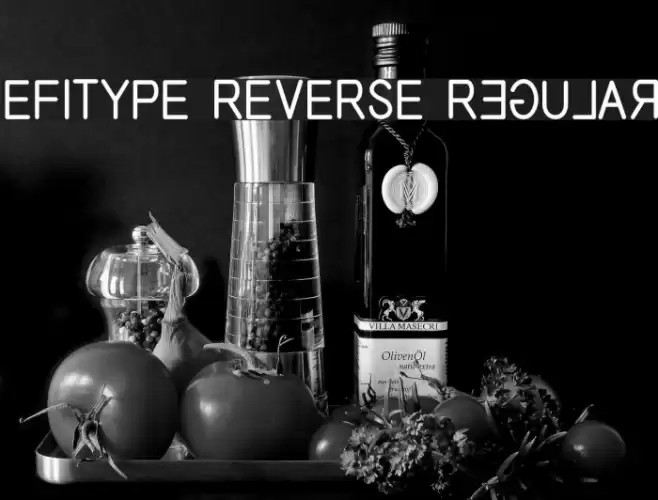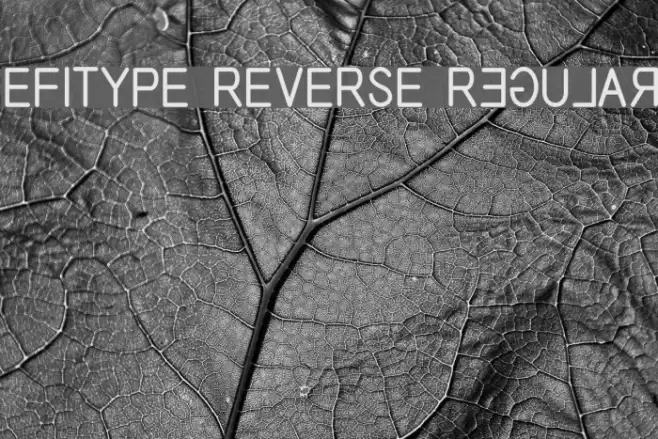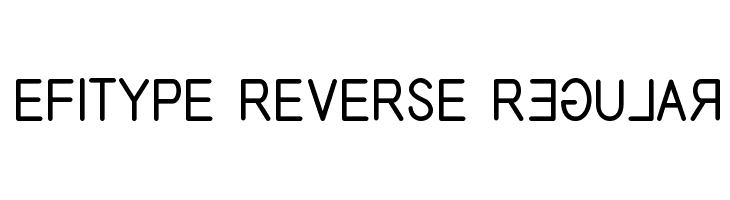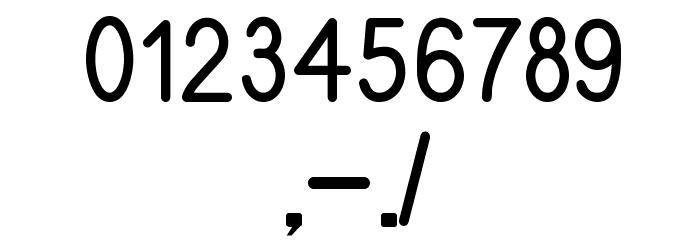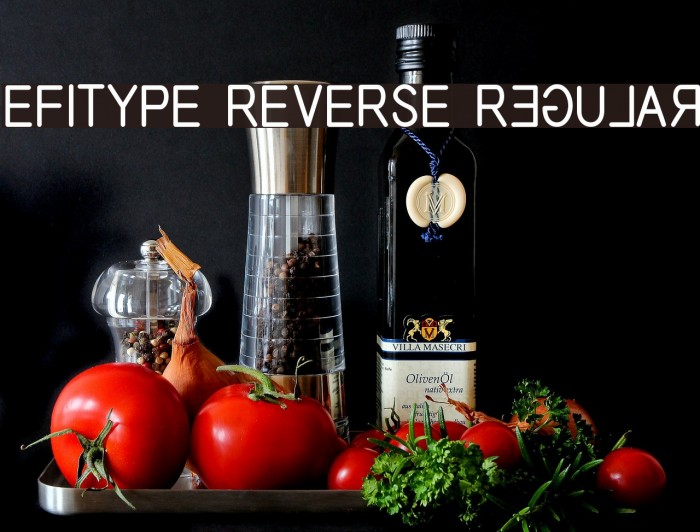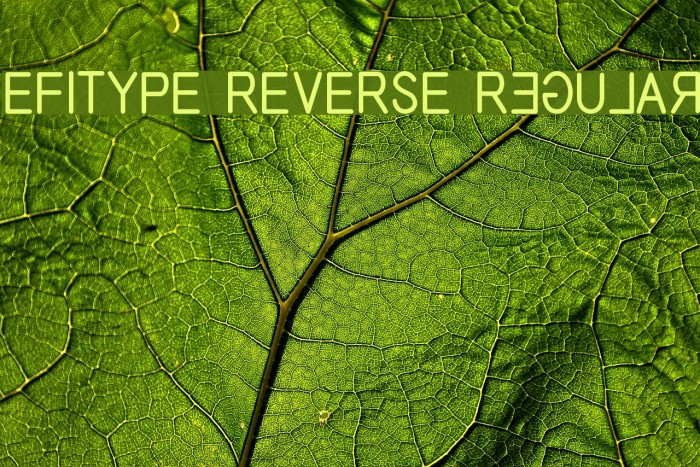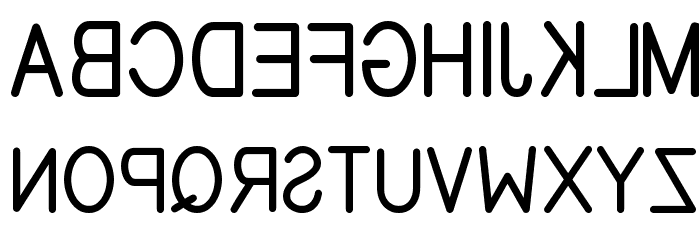
EFITYPE REVERSE Regular Font
EFITYPE REVERSE Regular Description
This font features a clean, geometric design with a modern aesthetic. The characters are constructed with uniform stroke widths, giving it a balanced and harmonious appearance. The uppercase and lowercase letters are distinct yet cohesive, maintaining clarity and readability. The numbers are straightforward and align well with the overall style. The special characters are simple and integrate seamlessly with the rest of the font. This typeface is versatile, suitable for a variety of design applications where a contemporary and minimalist look is desired.
A clean, geometric font with a modern and minimalist design from Uncategorized fonts.
- Proposed Projects: Ideal for branding, signage, digital interfaces, and editorial design.